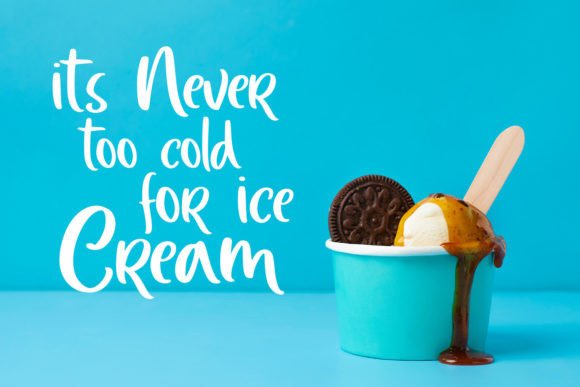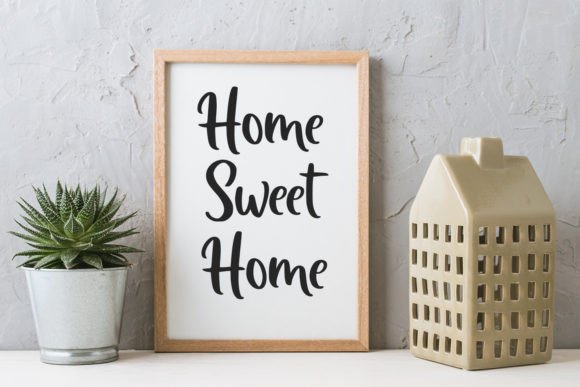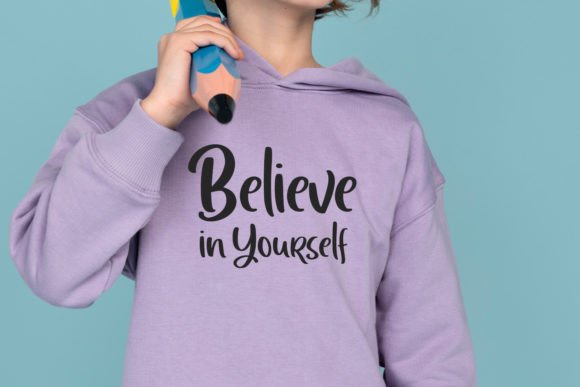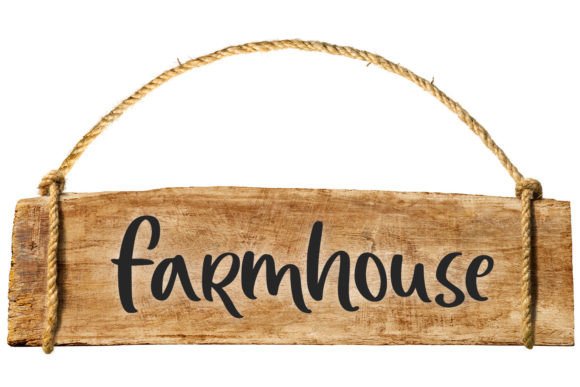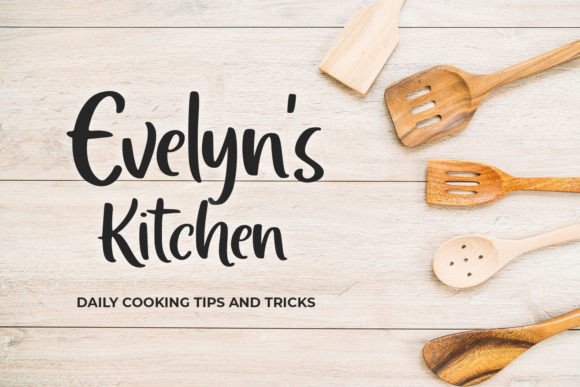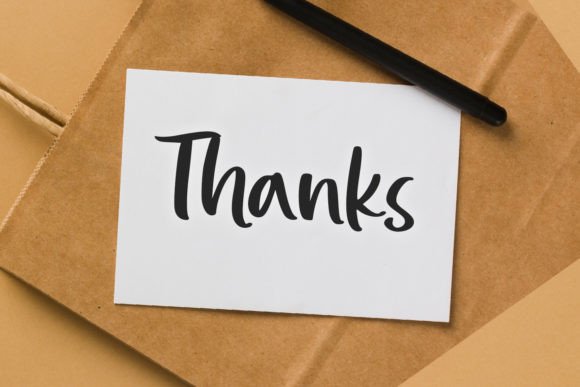
Cokelat Pasta Font: The Sweetest Addition to Your Design Collection
Are you a designer, crafter, or DIY enthusiast looking for a unique and playful font to add to your creative arsenal? Look no further than Cokelat Pasta, a sweet and adorable handwritten font with a quirky vibe that’s sure to delight. In this article, we’ll dive into the world of Cokelat Pasta, exploring its features, benefits, and uses, as well as provide tips and inspiration for incorporating it into your next project.
What is Cokelat Pasta Font?
Cokelat Pasta is a one-of-a-kind handwritten font that’s as charming as it is versatile. With its whimsical and curly letters, this font is perfect for adding a touch of personality to any design, from branding and packaging to invitations and crafts. Whether you’re creating a logo, a poster, or a social media graphic, Cokelat Pasta is sure to bring a smile to your audience’s faces.
Key Features of Cokelat Pasta Font
- Handwritten with love: Cokelat Pasta is a carefully crafted handwritten font, with each letter lovingly designed to convey a sense of warmth and friendliness.
- Quirky and playful: This font’s quirky vibe makes it perfect for designs that require a bit of whimsy and fun, from children’s party invitations to social media graphics.
- Adorable and sweet: Cokelat Pasta’s adorable design makes it a great choice for brands and designers who want to convey a sense of sweetness and innocence.
- Versatile and flexible: Whether you’re designing a logo, a poster, or a digital graphic, Cokelat Pasta can be used in a variety of contexts and applications.
Benefits of Using Cokelat Pasta Font
So why choose Cokelat Pasta over other fonts? Here are just a few benefits of using this delightful font:
- Adds personality to your designs: Cokelat Pasta’s unique and quirky design helps your designs stand out from the crowd and adds a touch of personality to your brand or project.
- Perfect for creative projects: Whether you’re a designer, crafter, or DIY enthusiast, Cokelat Pasta is a great choice for creative projects that require a bit of whimsy and fun.
- Easy to read and understand: Despite its playful design, Cokelat Pasta is easy to read and understand, making it a great choice for body text and other applications where legibility is key.
Using Cokelat Pasta Font in Your Designs
So how can you use Cokelat Pasta in your designs? Here are a few ideas to get you started:
- Branding and packaging: Use Cokelat Pasta to create custom branding and packaging that stands out from the crowd and adds a touch of personality to your products.
- Invitations and events: This font is perfect for creating custom invitations, party decorations, and other event materials that require a bit of whimsy and fun.
- Social media graphics: Add a touch of personality to your social media graphics with Cokelat Pasta, from Instagram posts to Facebook graphics.
- Crafts and DIY projects: Use Cokelat Pasta to add a personal touch to your crafts and DIY projects, from handmade cards to customized gifts.
Tips and Tricks for Working with Cokelat Pasta Font
Here are a few tips and tricks for getting the most out of Cokelat Pasta:
- Experiment with colors and textures: Cokelat Pasta looks great in a variety of colors and textures, so don’t be afraid to experiment and find the perfect combination for your design.
- Pair with other fonts: Try pairing Cokelat Pasta with other fonts to create a unique and eye-catching design.
- Use it sparingly: While Cokelat Pasta is a beautiful font, it can be overwhelming if used too much. Try using it sparingly to add a touch of personality to your design.
In conclusion, Cokelat Pasta is a sweet and adorable handwritten font with a quirky vibe that’s perfect for designers, crafters, and DIY enthusiasts. With its unique design, versatility, and ease of use, this font is sure to add a touch of personality to any design or project. So why wait? Add Cokelat Pasta to your creative arsenal today and enjoy the results!